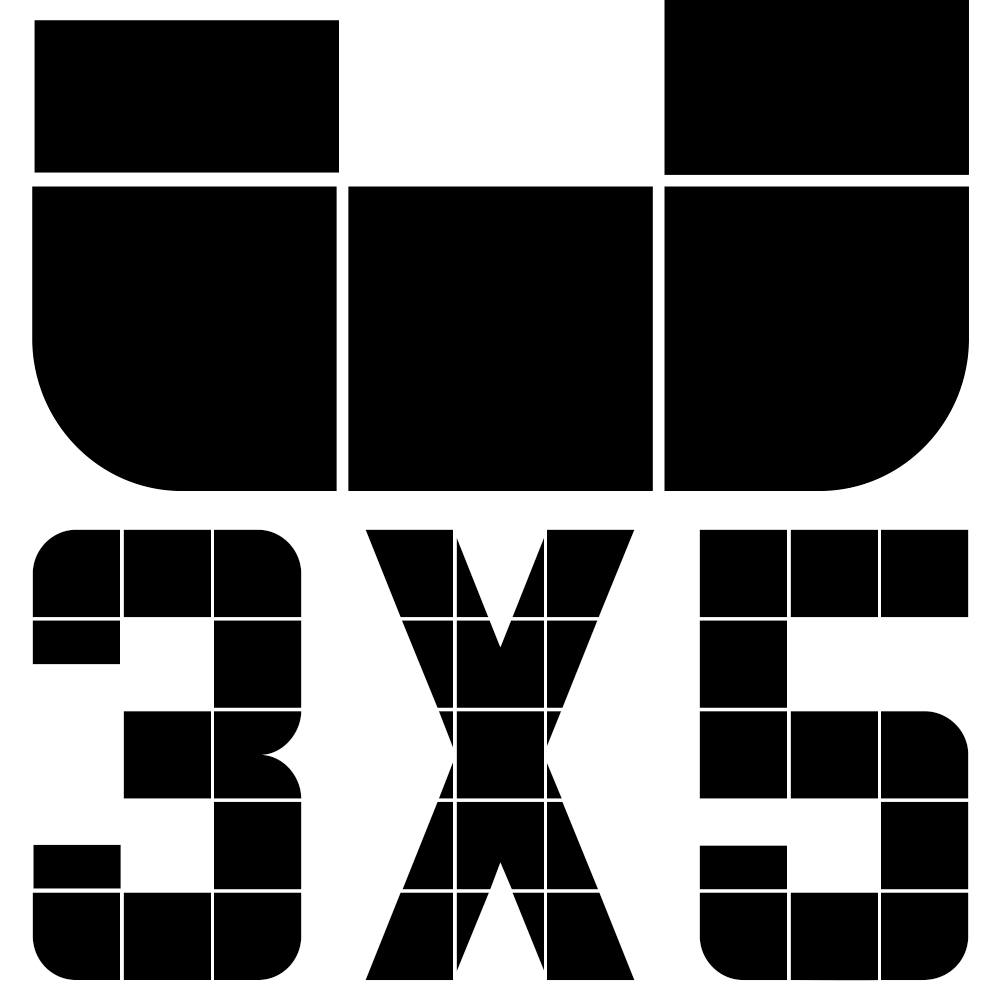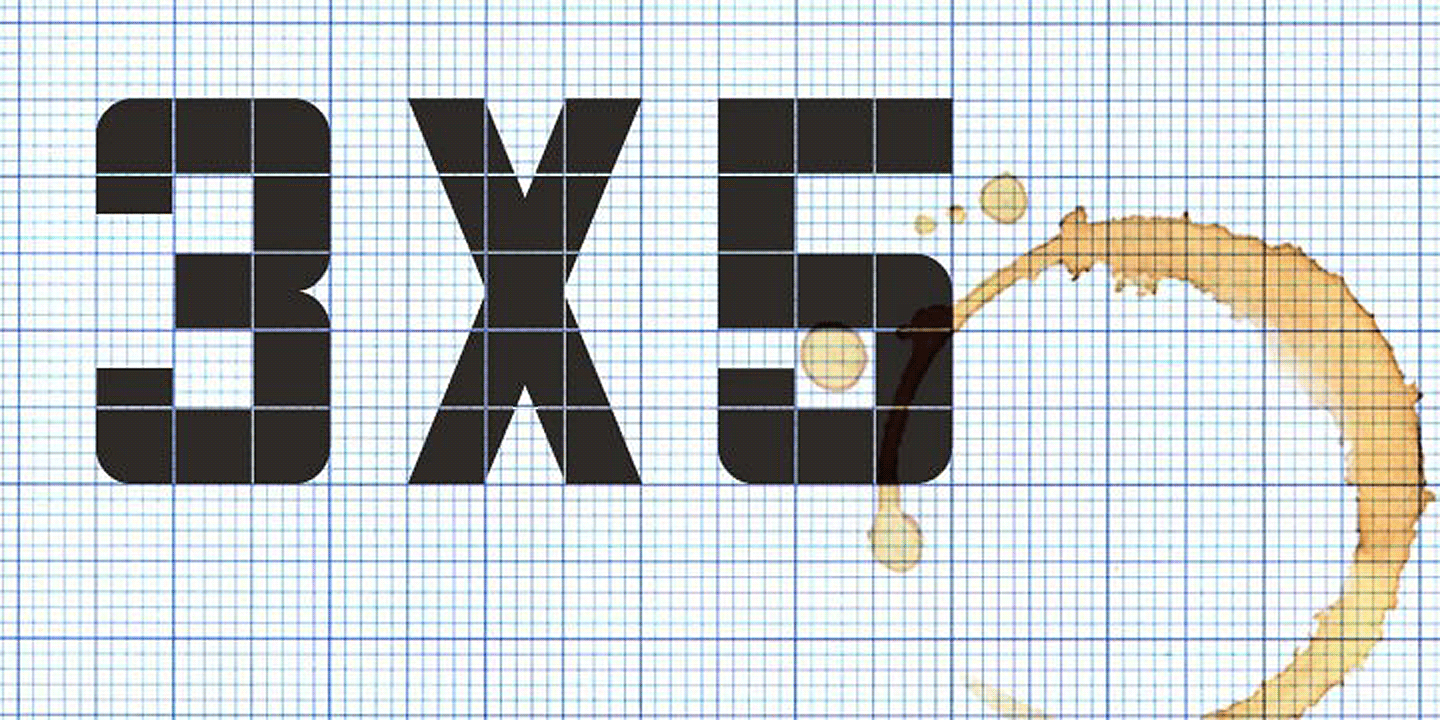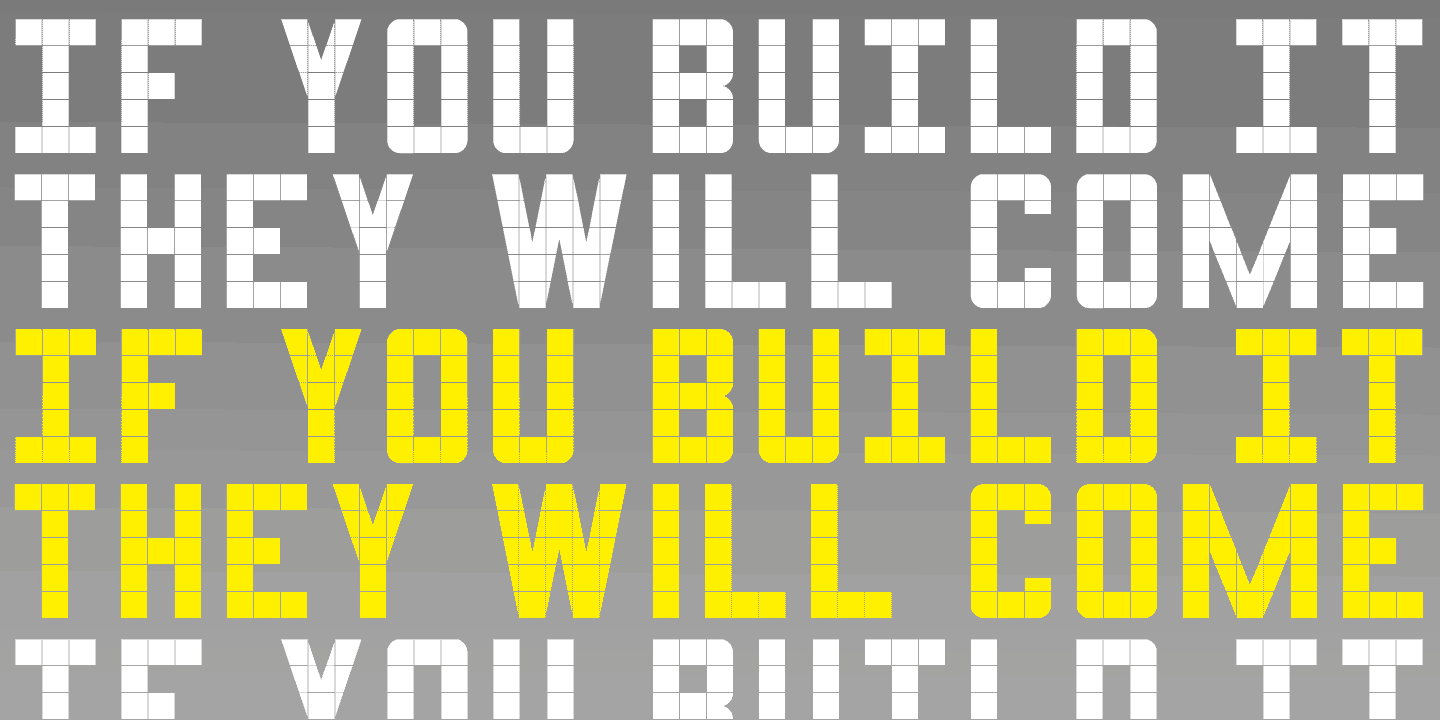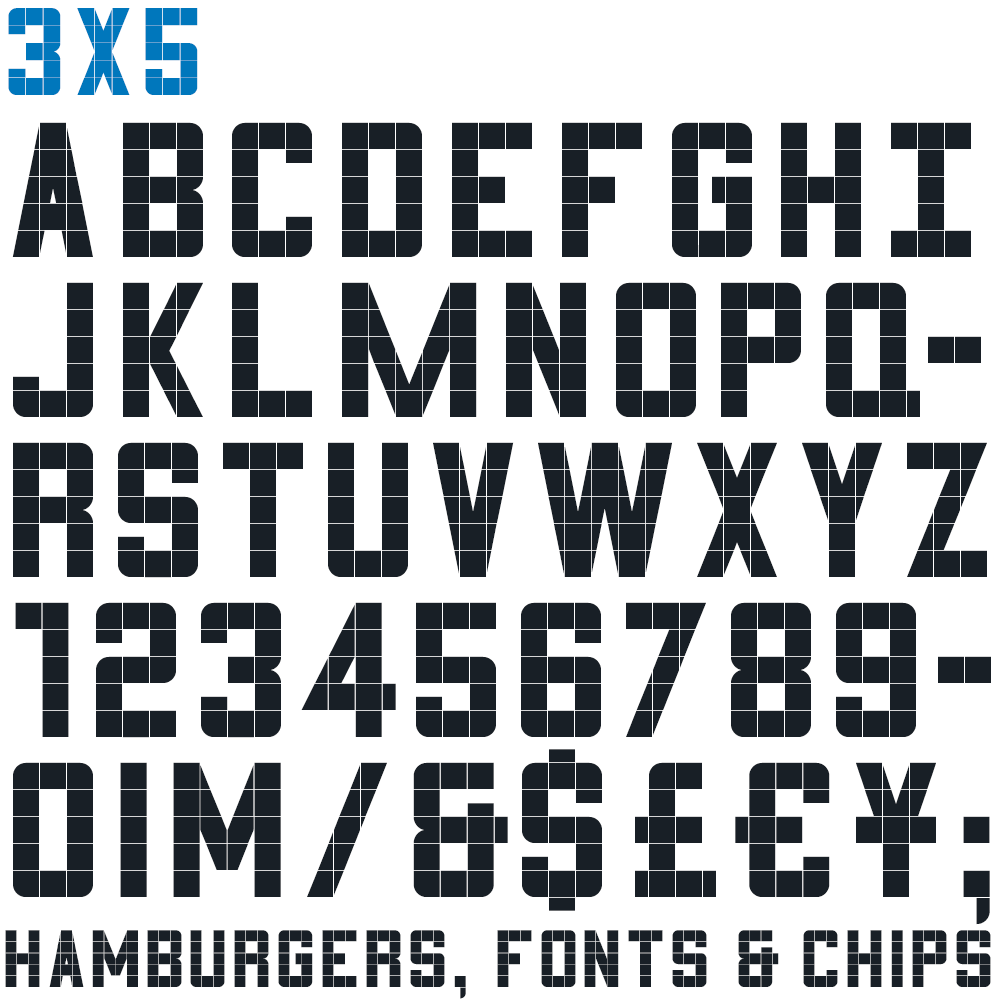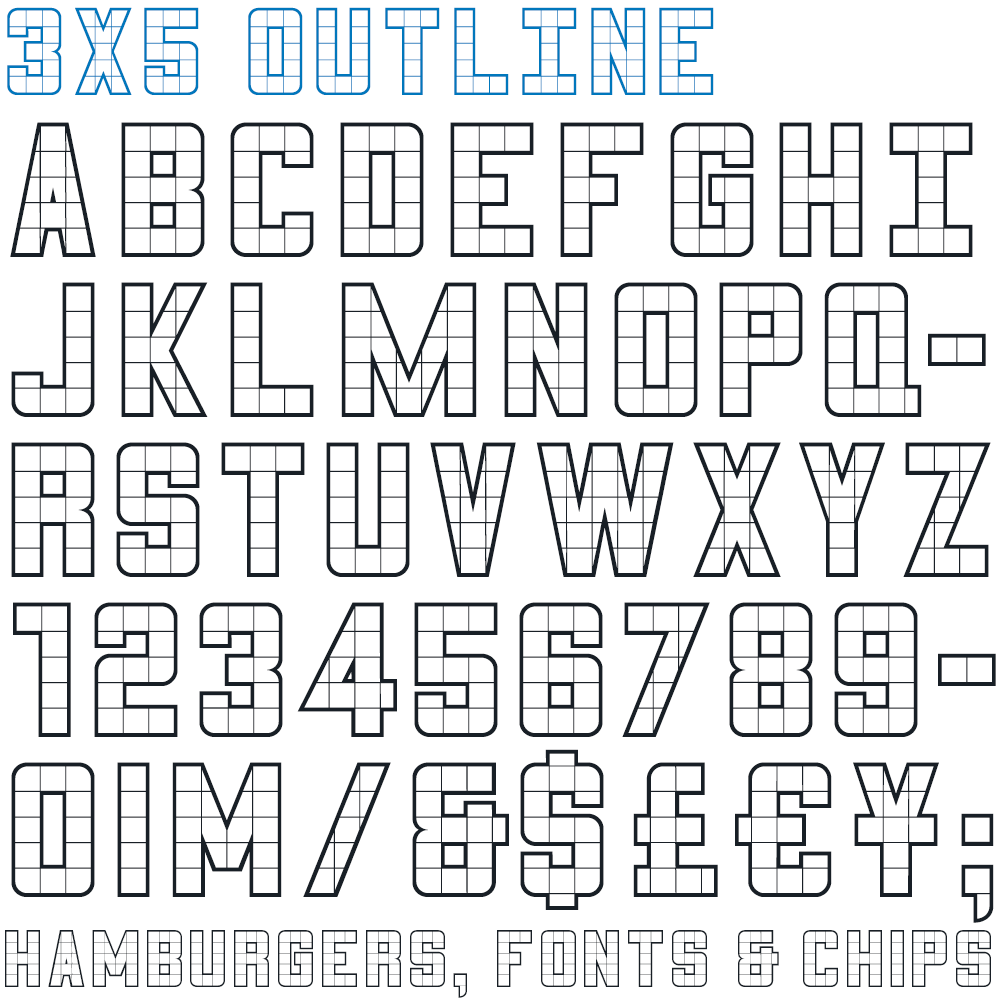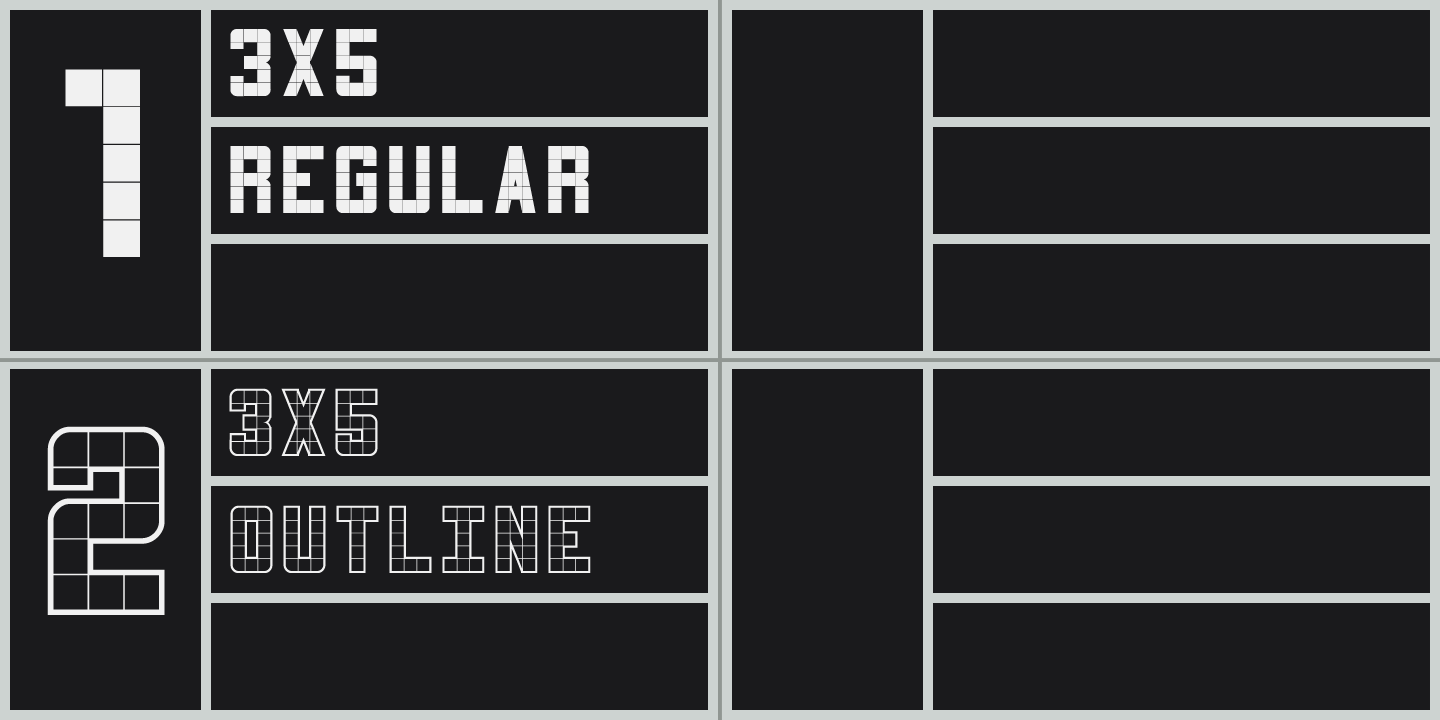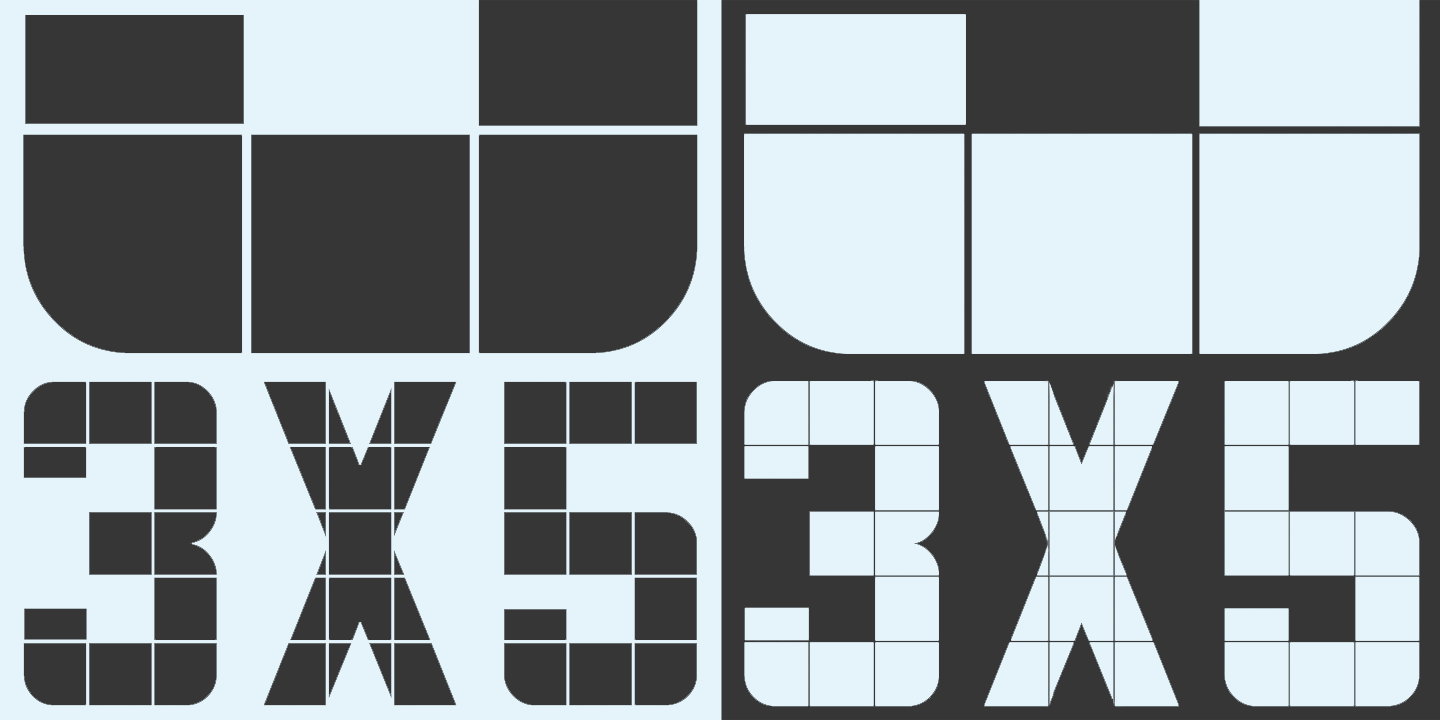
3×5
3×5 and 3×5 Outline are All-Caps display fonts rooted in a simple but distinctive grid logic: most characters are constructed within a framework three squares wide by five squares tall. Their origins lie in the squared, hand-drawn lettering once used on art folders at the former Joseph Eastham High School in Salford, where letters were carefully plotted on 1cm graph paper. In these digital interpretations, that underlying structure is not hidden but celebrated; the square modules and internal divisions remain visible, forming a defining decorative feature of each character.
The result is a pair of typefaces that feel both utilitarian and expressive. There is a quiet honesty to their construction, echoing an era when lettering was measured, marked out, and made by hand. At the same time, the rigid grid lends a subtle rhythm and consistency across words, giving text a cohesive, almost architectural quality.
3×5 carries a solid, confident presence, while 3×5 Outline offers a lighter, more open counterpart. Both fonts evoke the tiled and modular lettering found in mid-century public spaces such as railway stations, swimming baths, school corridors, and civic buildings, where durability and clarity were paramount. This association lends them a gentle note of nostalgia without tying them to any single period style.
Highly legible and visually striking, the fonts are well suited to sports branding, poster design, signage, and merchandise, where boldness and clarity are essential. Version 4.0 (2026) introduces refined outlines and improved consistency.